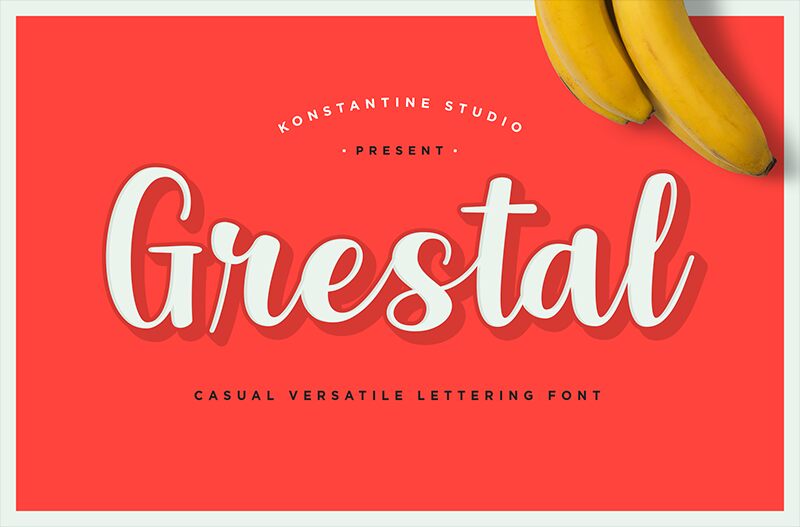
Please welcome, Grestal. A modern casual calligraphic font with lettering feels. So chill and fun to play with. Perfectly fit for any casual branding, food and beverages packaging, social media branding, logo, a vintage and retro things are an absolute yes too for this font. Send the messages with your design in a fun way with it. Double the happiness!